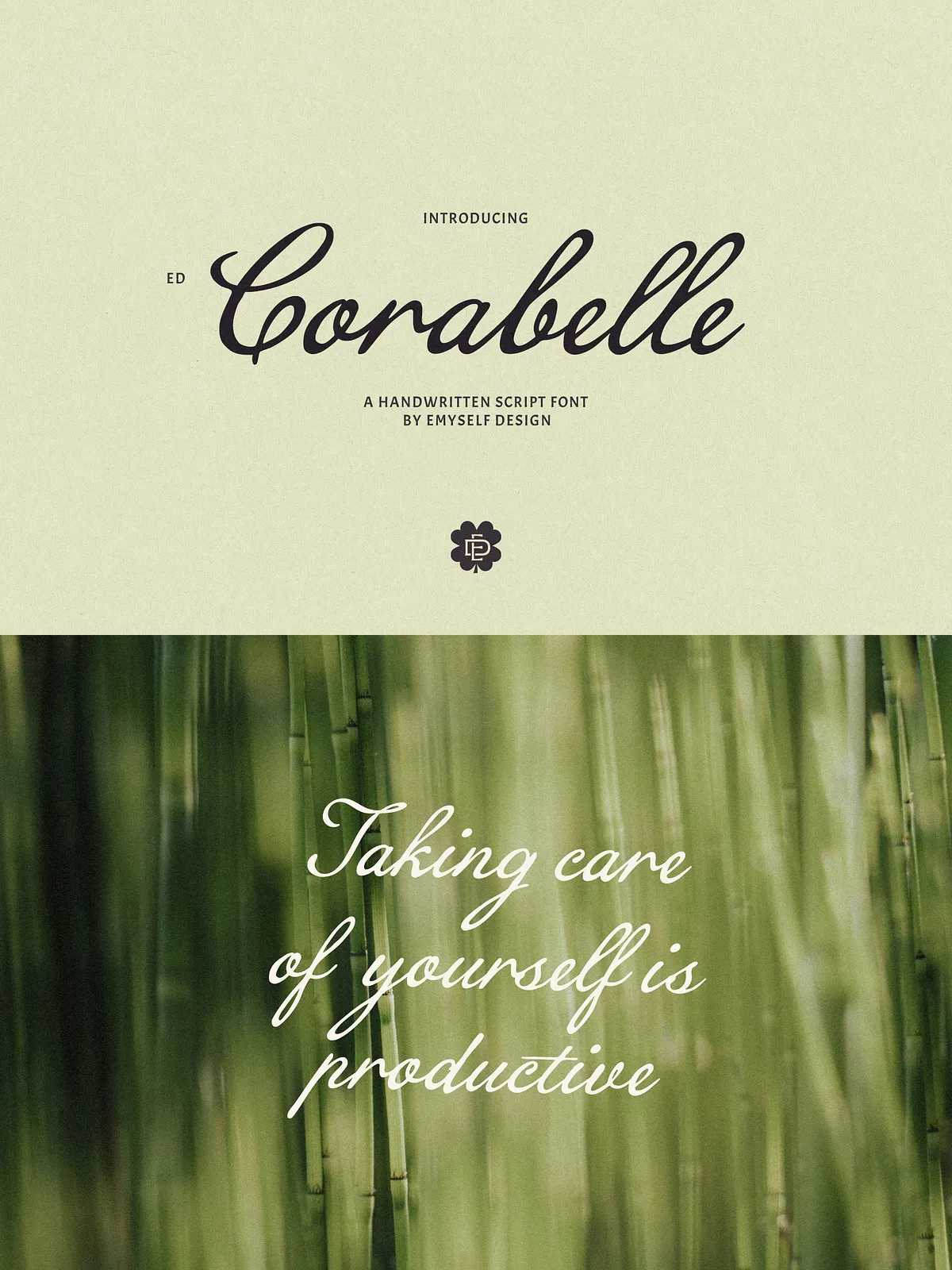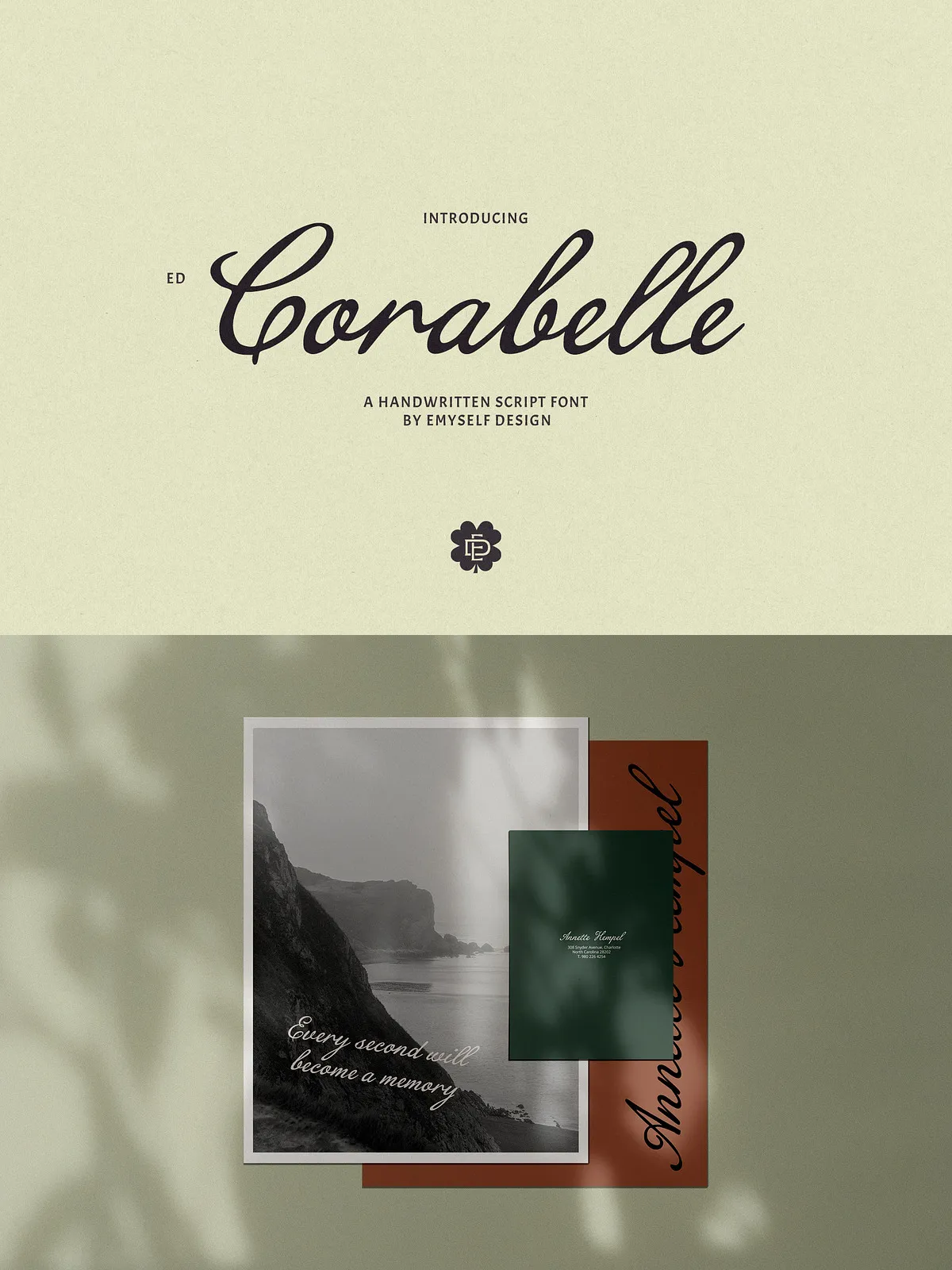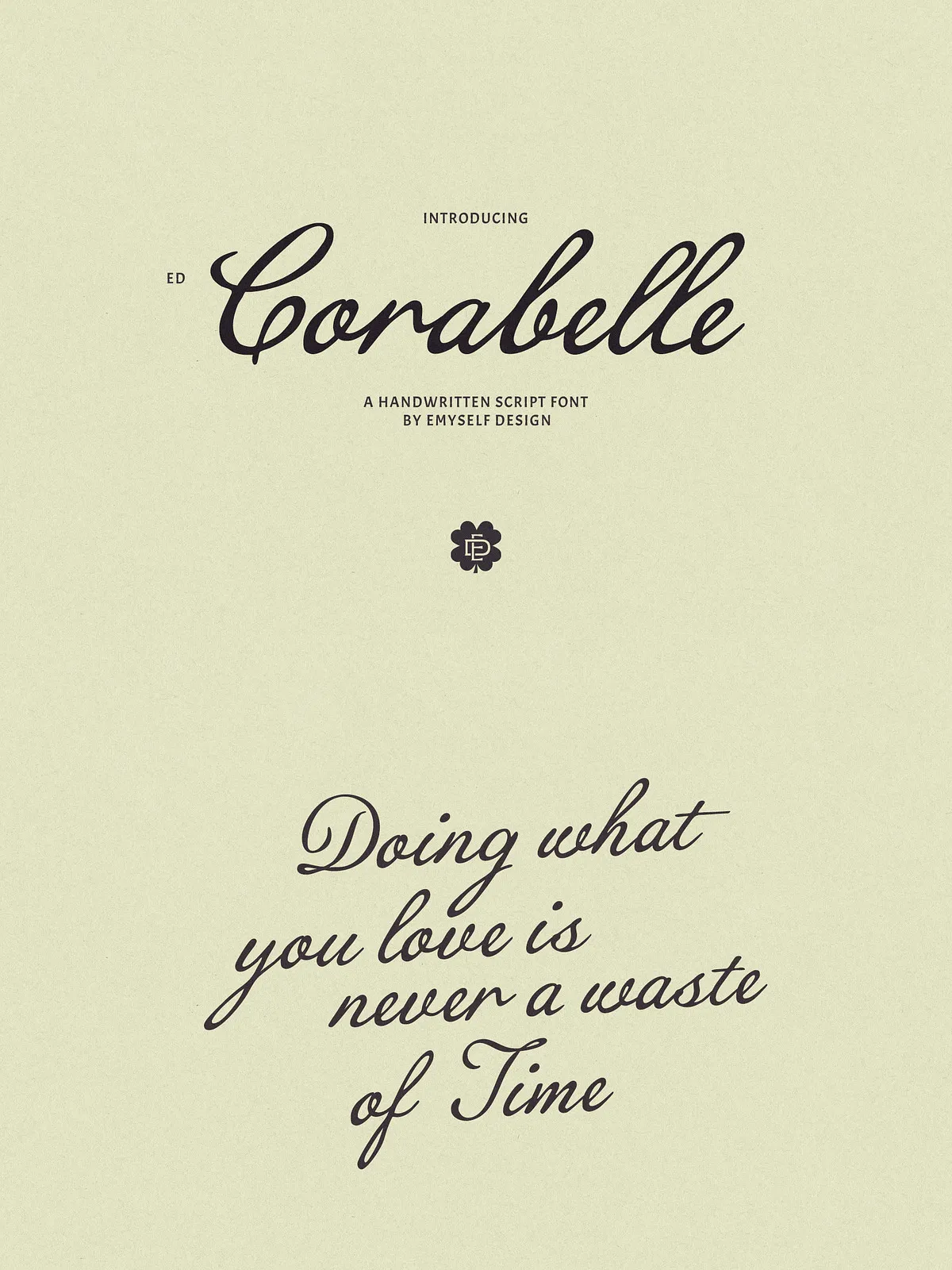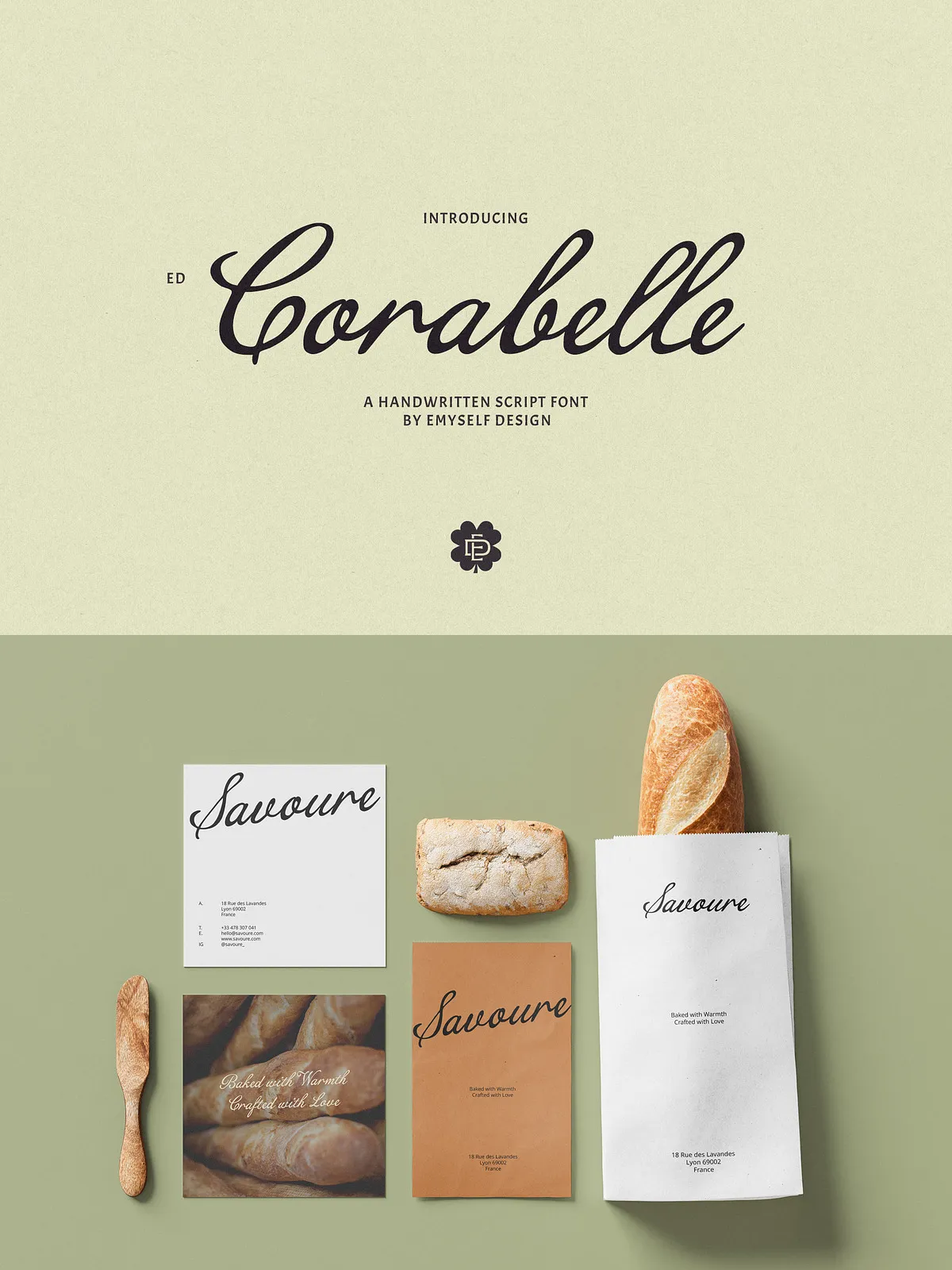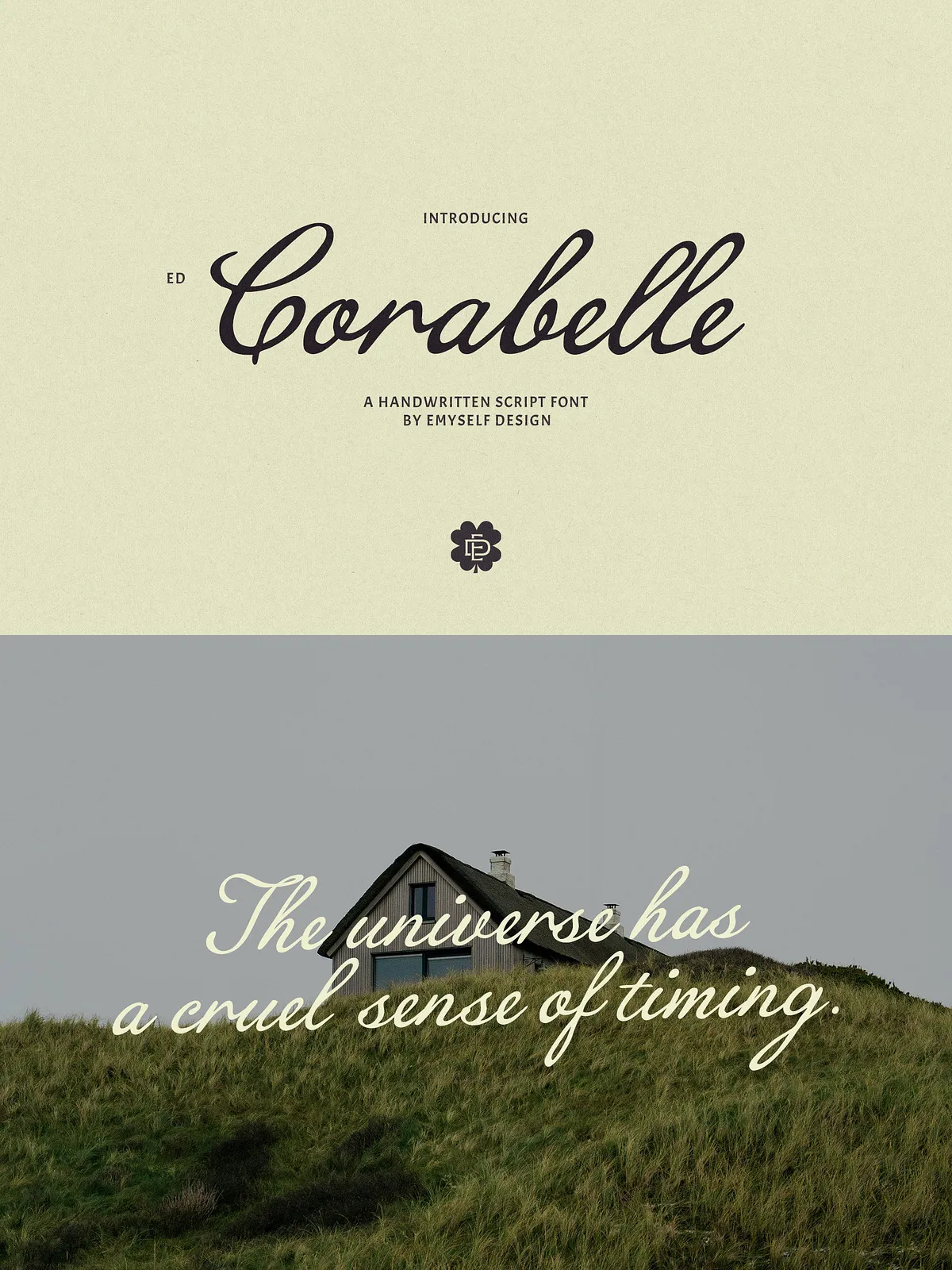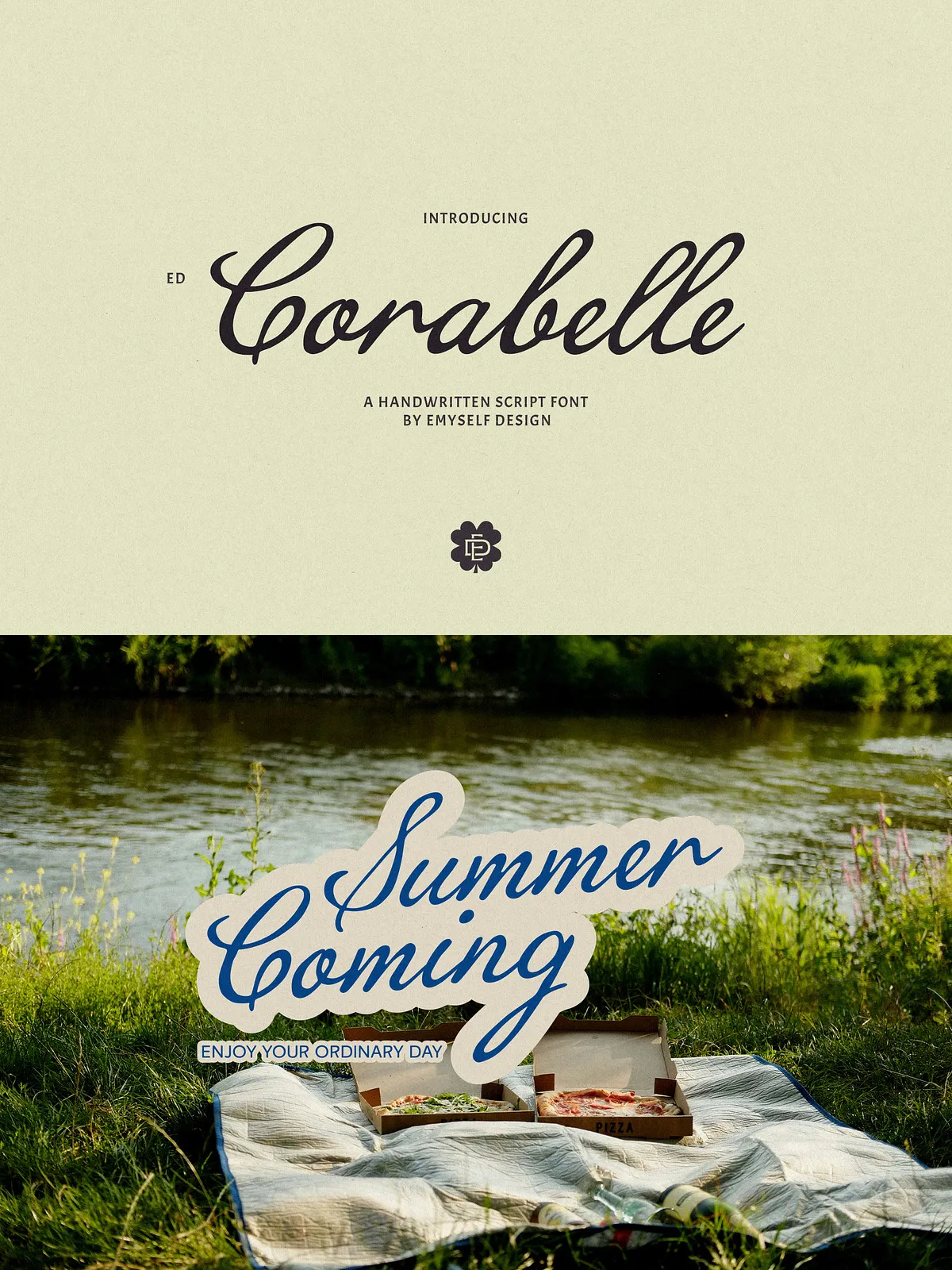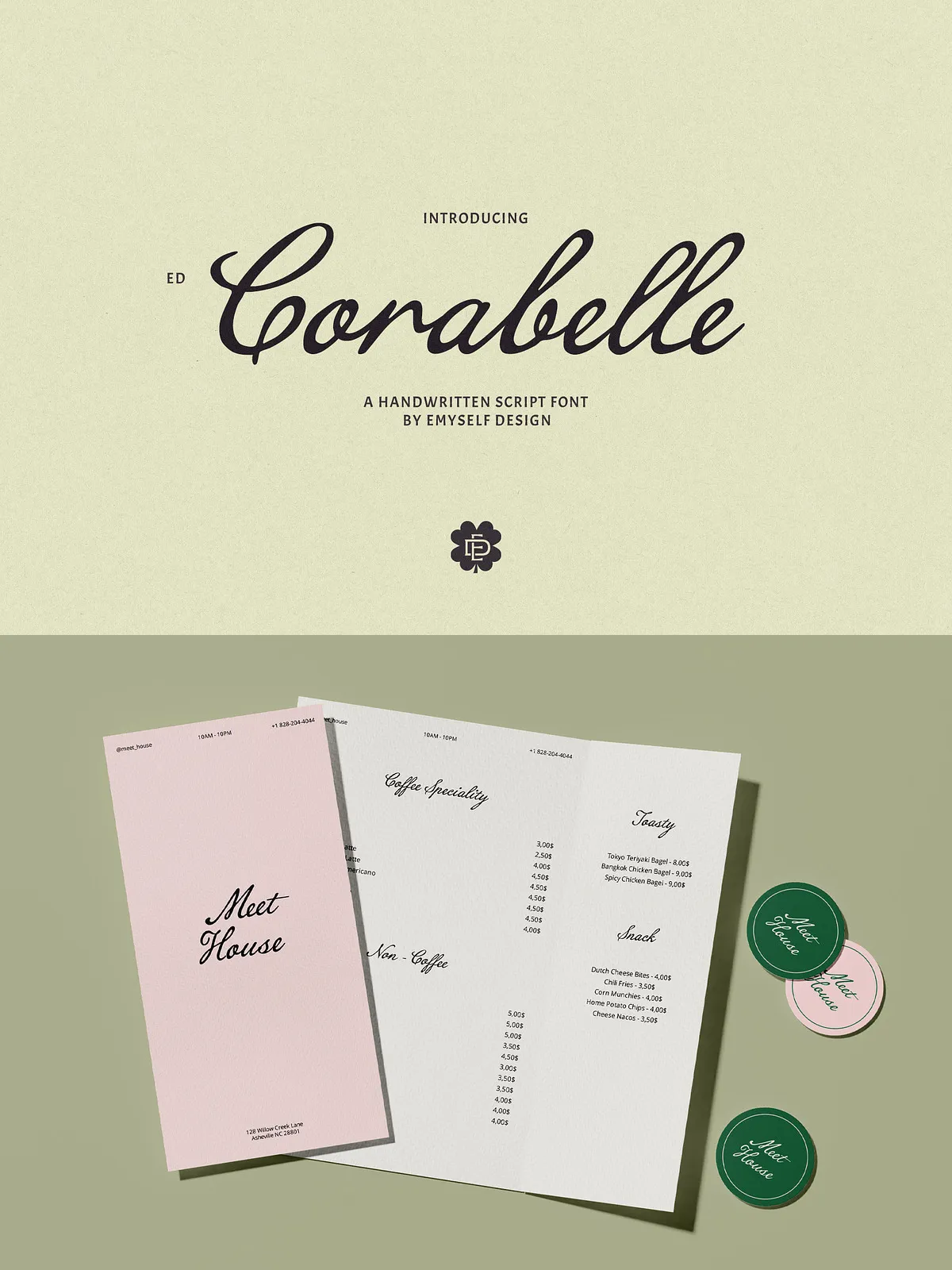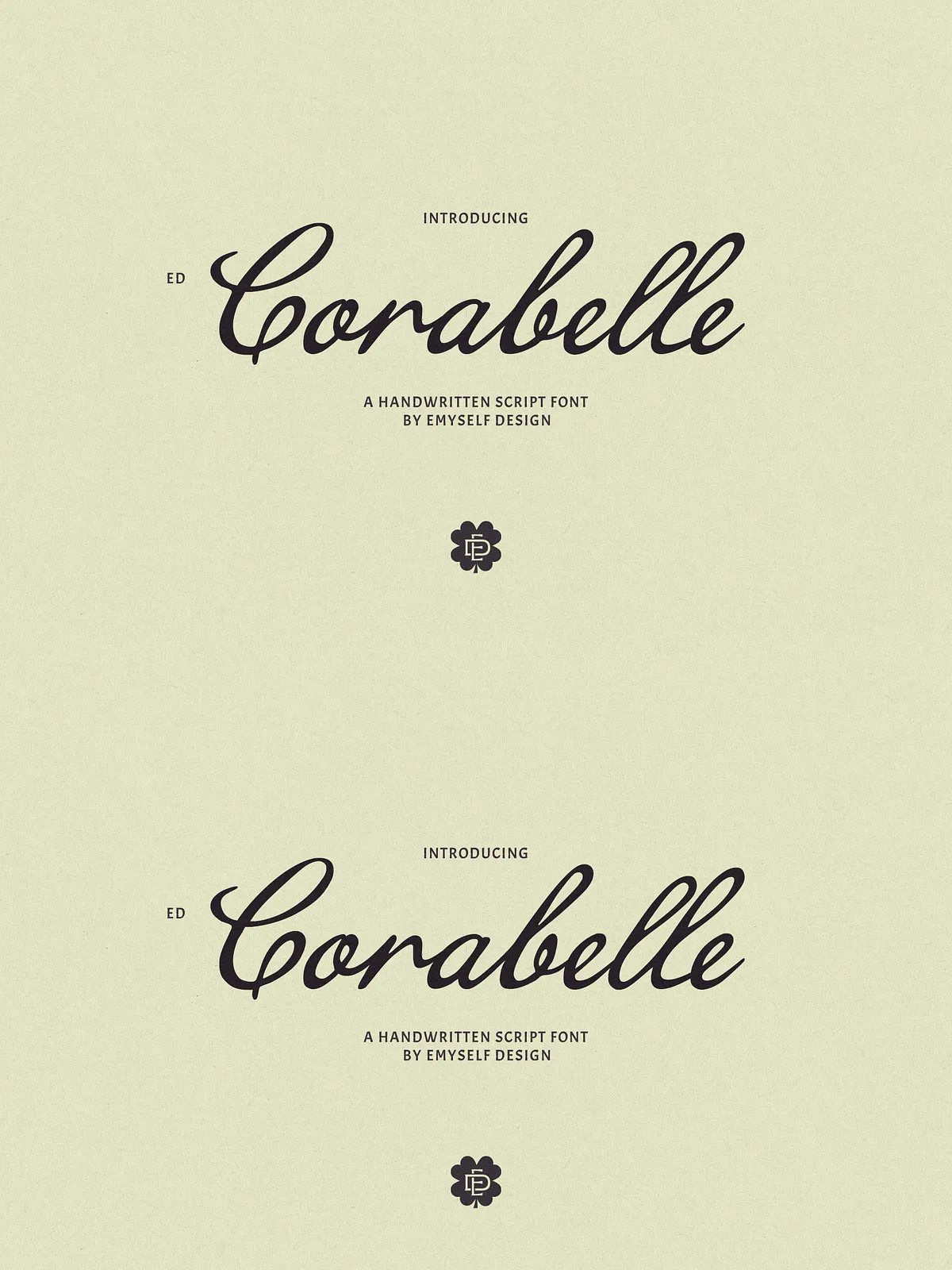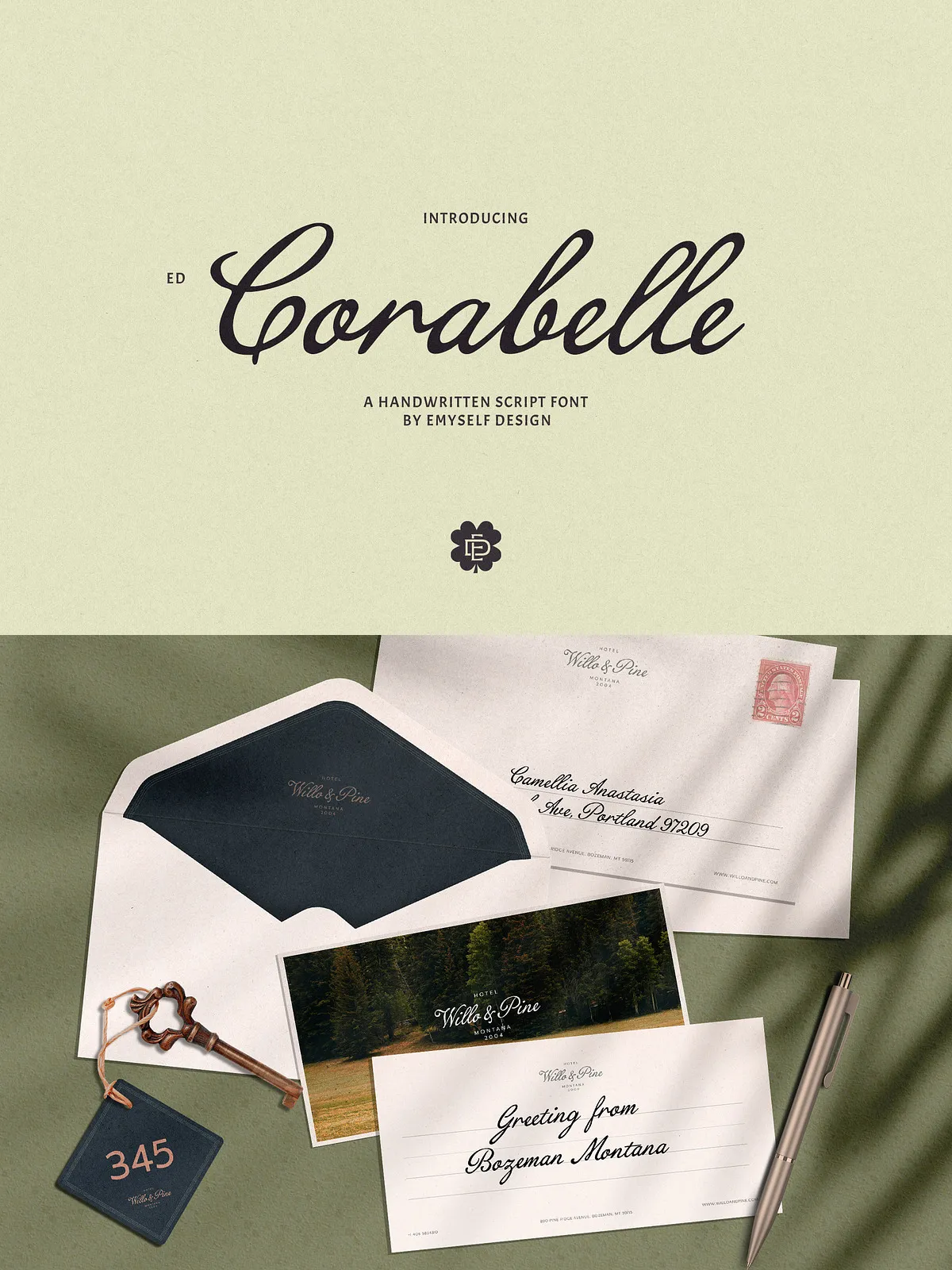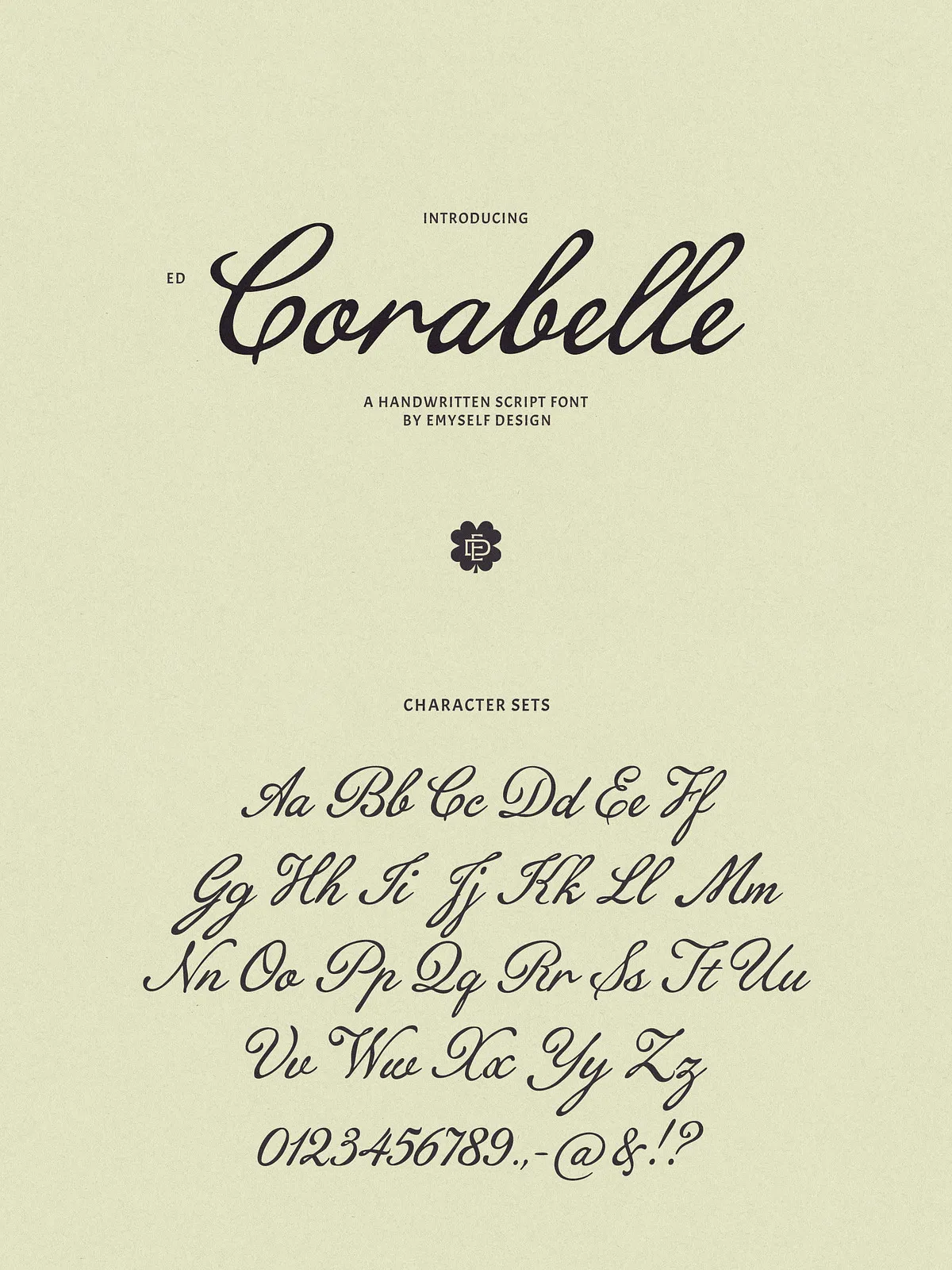
ED Corabelle elevates typography with a rich, human touch. This handwritten script font showcases pronounced thick-and-thin strokes, sweeping capital letters, and naturally flowing connections that read like ink on paper. Designers seeking authentic calligraphic emotion will find ED Corabelle immediately usable: it brings warmth to wedding invitations, presence to logos, and charm to social posts and stationery.
Design & Character
Authentic, intentional, and artful
Every curve in ED Corabelle serves a visual purpose. The stems and swashes balance dramatic contrast with graceful motion, producing letterforms that feel both deliberate and effortless. Capitals arrive with flourish; lowercase forms move together with organic rhythm. The overall voice reads romantic and refined without appearing overly formal—ideal for brands and projects that want genuine personality.
When to choose ED Corabelle
Choose ED Corabelle when you want typography to convey handcrafted quality and emotional resonance: wedding suites, boutique branding, greeting cards, editorial quotes, packaging accents, and social media visuals. The font performs best in display roles where its sculpted strokes and ligatures can show their expressive character.
Features
Comprehensive, creative, and production-ready
- Total Glyphs: 394 glyphs, providing broad typographic richness.
- Case Support: Uppercase and lowercase alphabets with expressive capitals.
- OpenType Extras: Ligatures and stylistic sets to create natural, varied word shapes.
- Punctuation & Symbols: Full set of punctuation marks and common symbols for polished layouts.
Practical Applications
Where ED Corabelle performs best
- Wedding Invitations & Stationery: Create elegant invites, RSVP cards, and envelopes with romantic, hand-crafted typography.
- Branding & Logos: Craft distinctive wordmarks and signature logotypes that emphasize authenticity and warmth.
- Social Media & Quotes: Design attention-grabbing posts, story headers, and quote cards with a personal voice.
- Packaging & Labels: Apply ED Corabelle to boutique product labels, perfume packaging, and gift tags to suggest artisanal quality.
- Editorial Headers & Posters: Use in headlines and feature art where expressive form multiplies visual impact.
Usage Tips & Pairing Recommendations
Maximize legibility and impact
Pair ED Corabelle with clean sans-serifs or subtle neutral serifs to provide contrast and maintain readability for body text. Reserve the script for display roles—titles, logos, and accents—rather than long paragraphs. Activate ligatures and stylistic sets in your design software to produce varied, natural-looking connections between letters. For print, use crisp vector output and sufficient contrast between text and background to preserve delicate hairlines.
Styling suggestions
- Increase tracking slightly on long uppercase runs to avoid visual crowding.
- Use generous leading for multi-line script blocks to preserve open, airy rhythm.
- Combine ED Corabelle with minimal geometric shapes or restrained color palettes to highlight its handcrafted character.